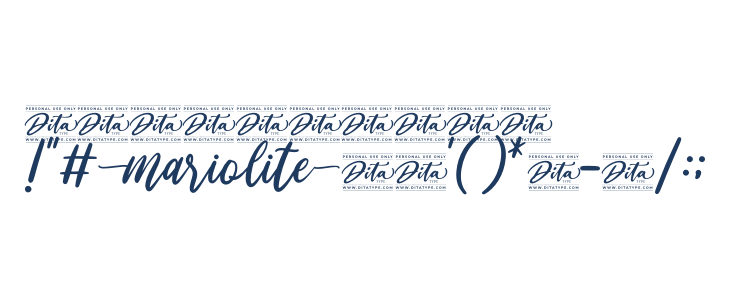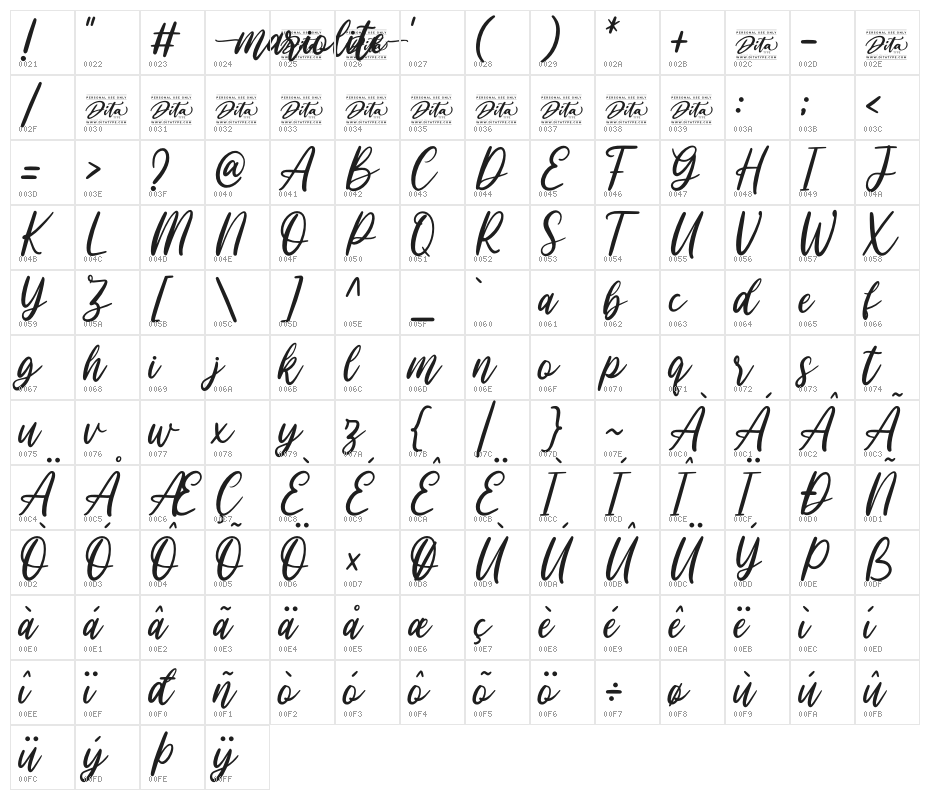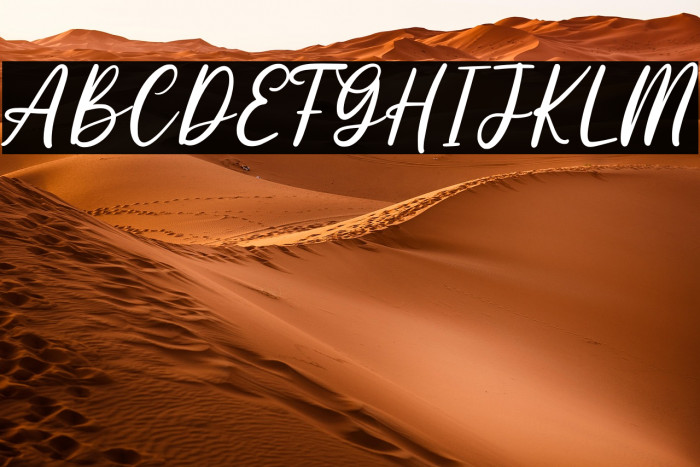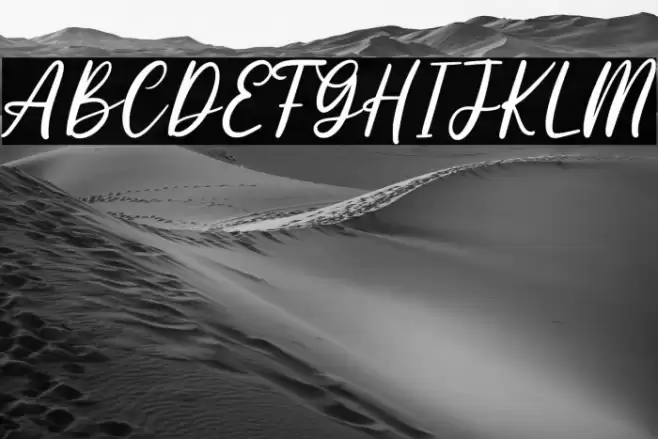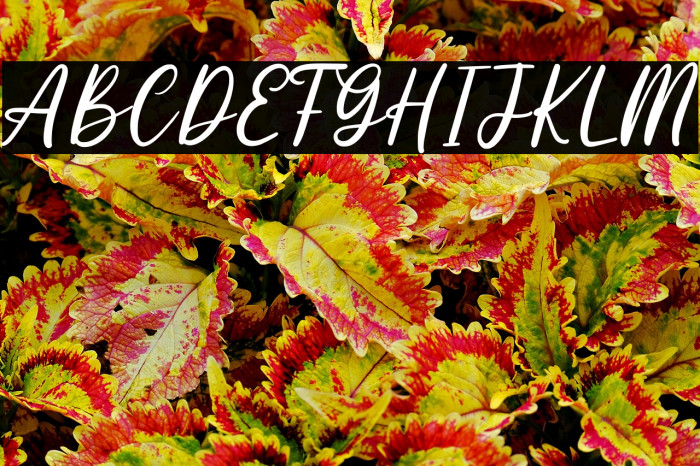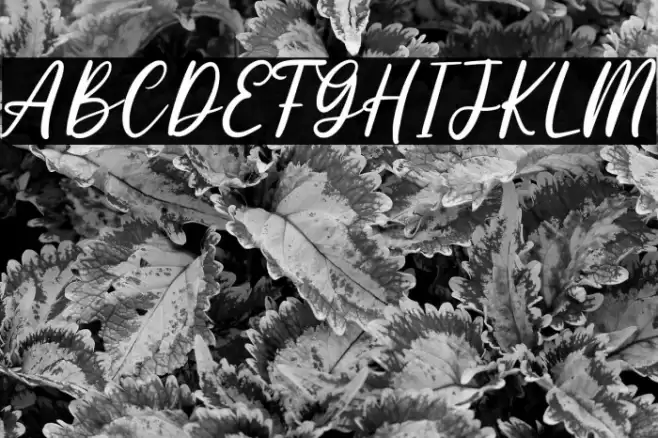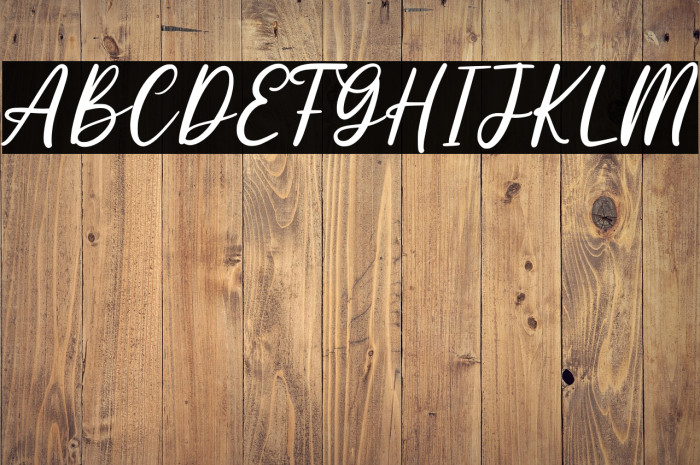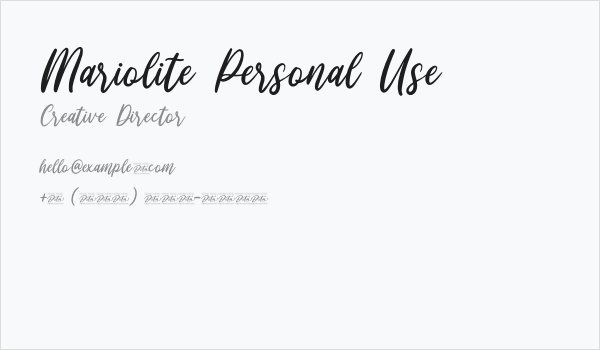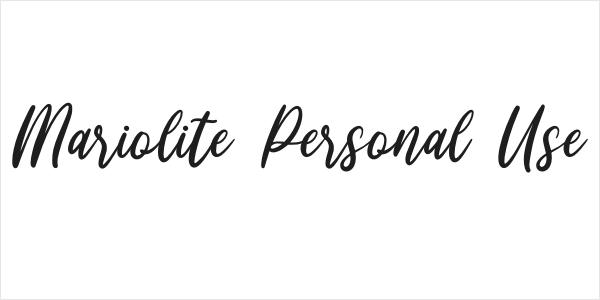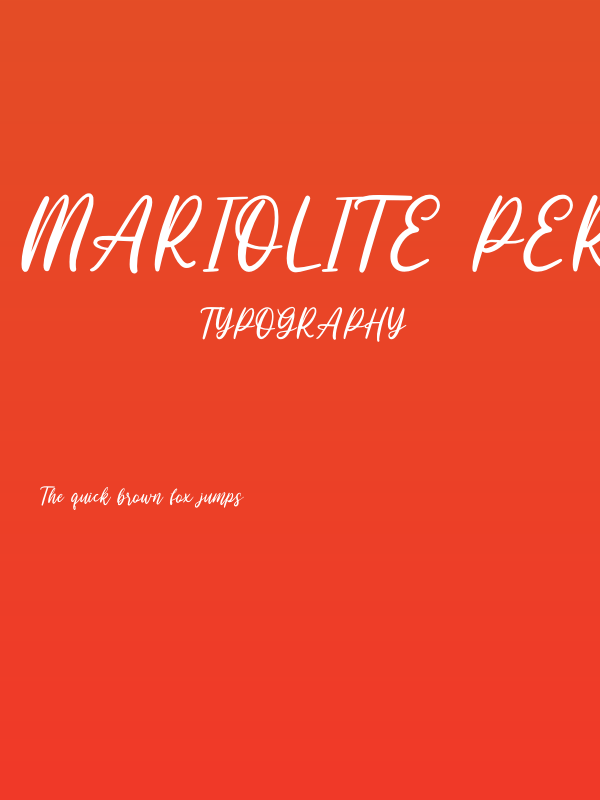
Mariolite Personal Use Font
Mariolite Personal Use Description
This font features a flowing, cursive style with a modern twist, characterized by smooth, connected strokes that give it an elegant and sophisticated appearance. The uppercase letters are tall and slightly narrow, while the lowercase letters maintain a consistent flow with subtle variations in height and width. The script is highly legible, making it suitable for both formal and informal contexts. The numbers and special characters are designed to match the overall aesthetic, ensuring a cohesive look across all text elements. This font exudes a sense of creativity and flair, ideal for projects that require a personal touch.
| Use Case | Logos, Invitations, Social Media |
| Proposed Projects | Ideal for wedding invitations, branding, social media graphics, and personal stationery. |